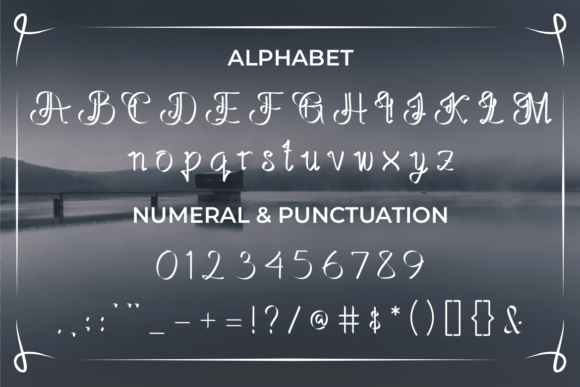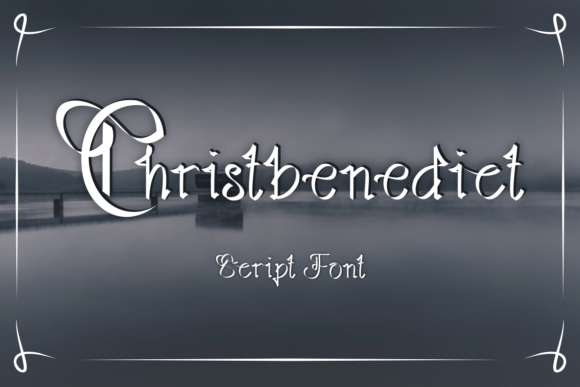
Introducing Christbenedict Font: The Ultimate Choice for a Refreshing Design
Are you tired of using the same old fonts in your designs? Look no further! Christbenedict Font is here to revolutionize your creative projects with its fun and unique handwritten style. Crafted with precision and passion, this beautiful font is perfect for designers and crafters who want to add a touch of elegance and freshness to their work.
The Story Behind Christbenedict Font
Christbenedict Font was created with the intention of providing a distinctive and captivating font that would cater to the needs of designers and crafters. The font’s unique style is characterized by its flowing lines, elegant curves, and a dash of playfulness. Whether you’re working on a branding project, a craft, or a digital design, Christbenedict Font is sure to make your work stand out.
Key Features of Christbenedict Font
- Unique Handwritten Style: Christbenedict Font boasts a one-of-a-kind handwritten style that exudes warmth and personality.
- High-Quality Design: The font is meticulously crafted with attention to detail, ensuring a high-quality design that will elevate your projects.
- Versatility: Christbenedict Font is perfect for a wide range of design projects, from branding and advertising to crafting and digital design.
- Easy to Read: The font’s clear and legible design makes it easy to read, even at smaller sizes.
What Makes Christbenedict Font Perfect for Designers and Crafters?
Christbenedict Font is more than just a font – it’s a design solution that can transform your projects. Here are a few reasons why designers and crafters love Christbenedict Font:
- Personal Touch: The font’s handwritten style adds a personal touch to your designs, making them more relatable and engaging.
- Flexibility: Christbenedict Font can be used in a variety of design projects, from formal to informal, and can be paired with other fonts to create a unique look.
- Time-Saving: With Christbenedict Font, you can create stunning designs in no time. The font’s high-quality design and versatility save you time and effort, allowing you to focus on other aspects of your project.
How to Use Christbenedict Font in Your Designs
Using Christbenedict Font in your designs is easy! Here are a few tips to get you started:
- Pair it with Other Fonts: Combine Christbenedict Font with other fonts to create a unique and visually appealing design.
- Experiment with Colors: Play around with different colors to find the perfect match for your design.
- Use it for Headings and Titles: Christbenedict Font is perfect for headings and titles, adding a touch of elegance and sophistication to your design.
In conclusion, Christbenedict Font is a game-changer for designers and crafters. Its unique handwritten style, high-quality design, and versatility make it the perfect choice for a wide range of design projects. Whether you’re looking to add a personal touch to your designs or want to create a stunning visual effect, Christbenedict Font is the ultimate choice. So why wait? Get creative with Christbenedict Font today and take your designs to the next level!